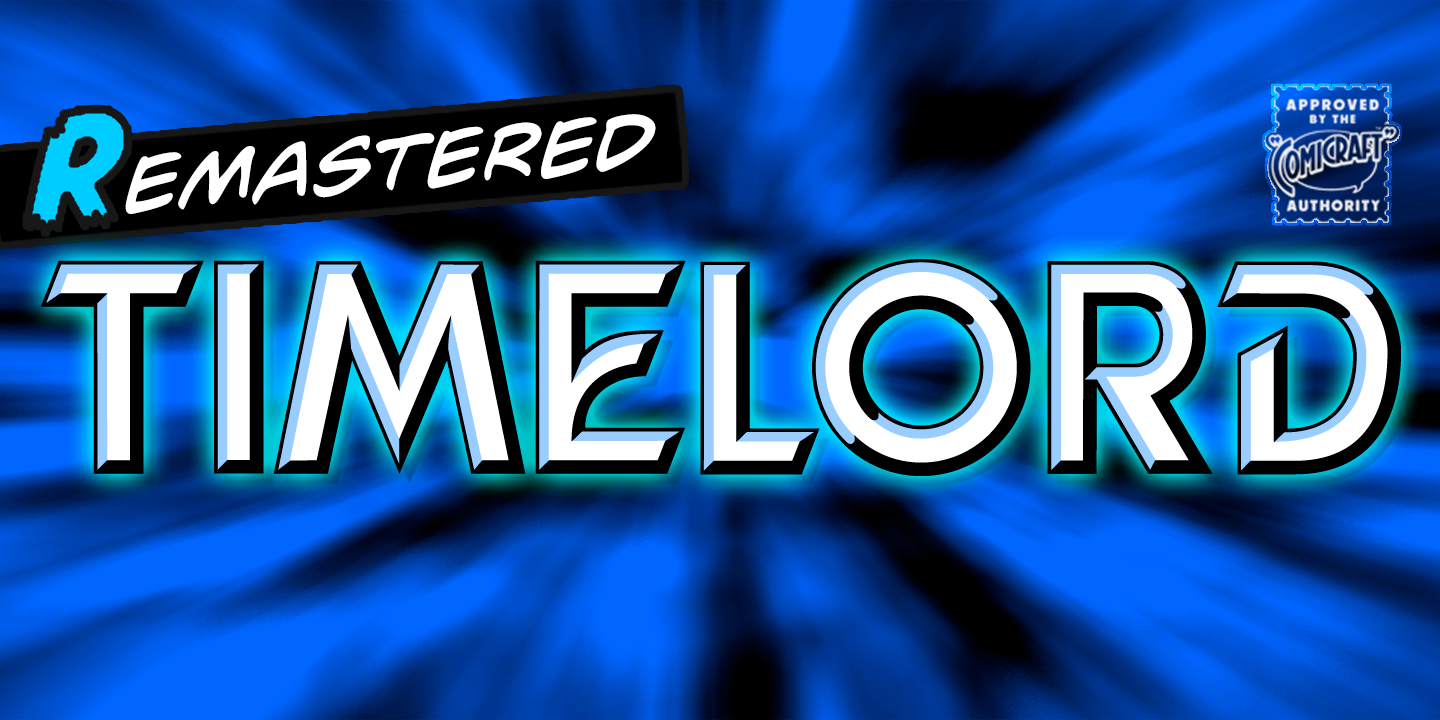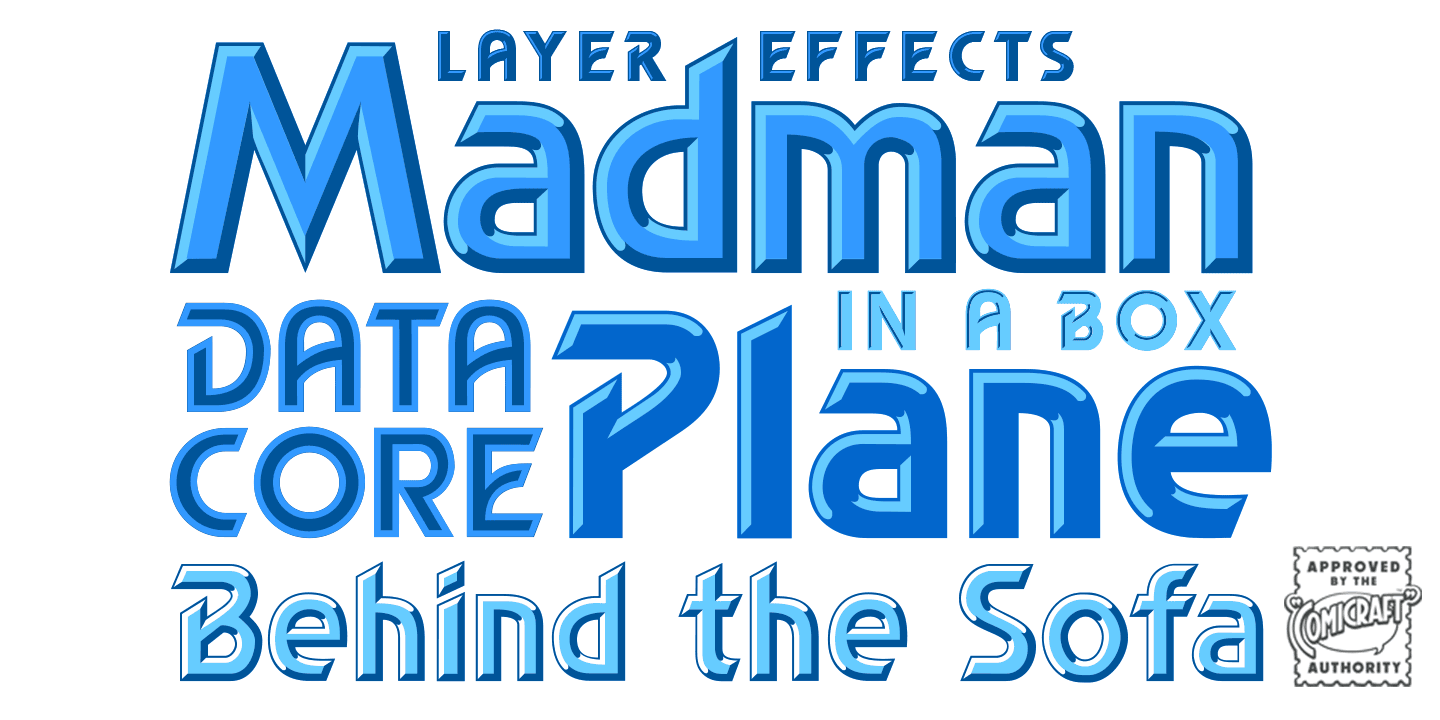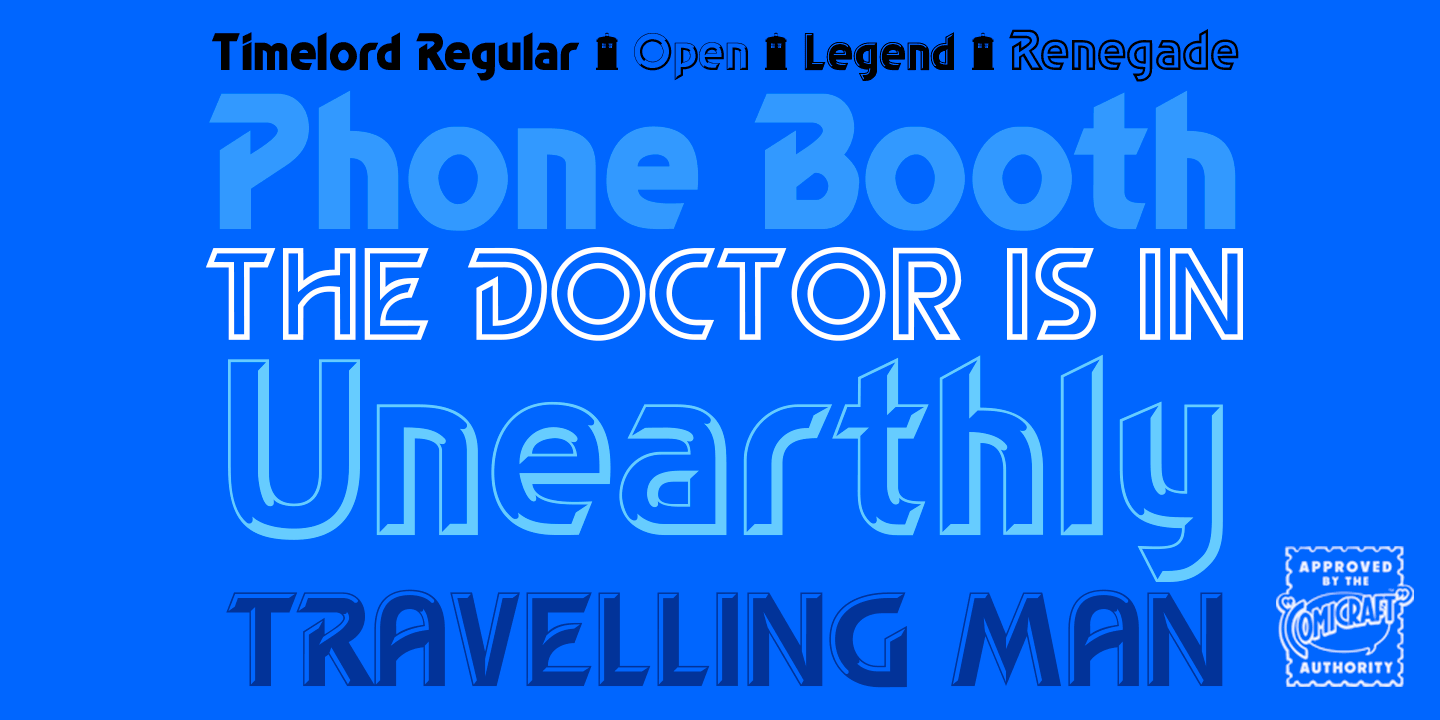
About the Timelord Font
About Timelord Font Family VWORP! VWORP! This font will travel through the four dimensions of time and space to materialise on your hard drive. TIMELORD was created for Telos publishing’s line of DOCTOR WHO novellas.